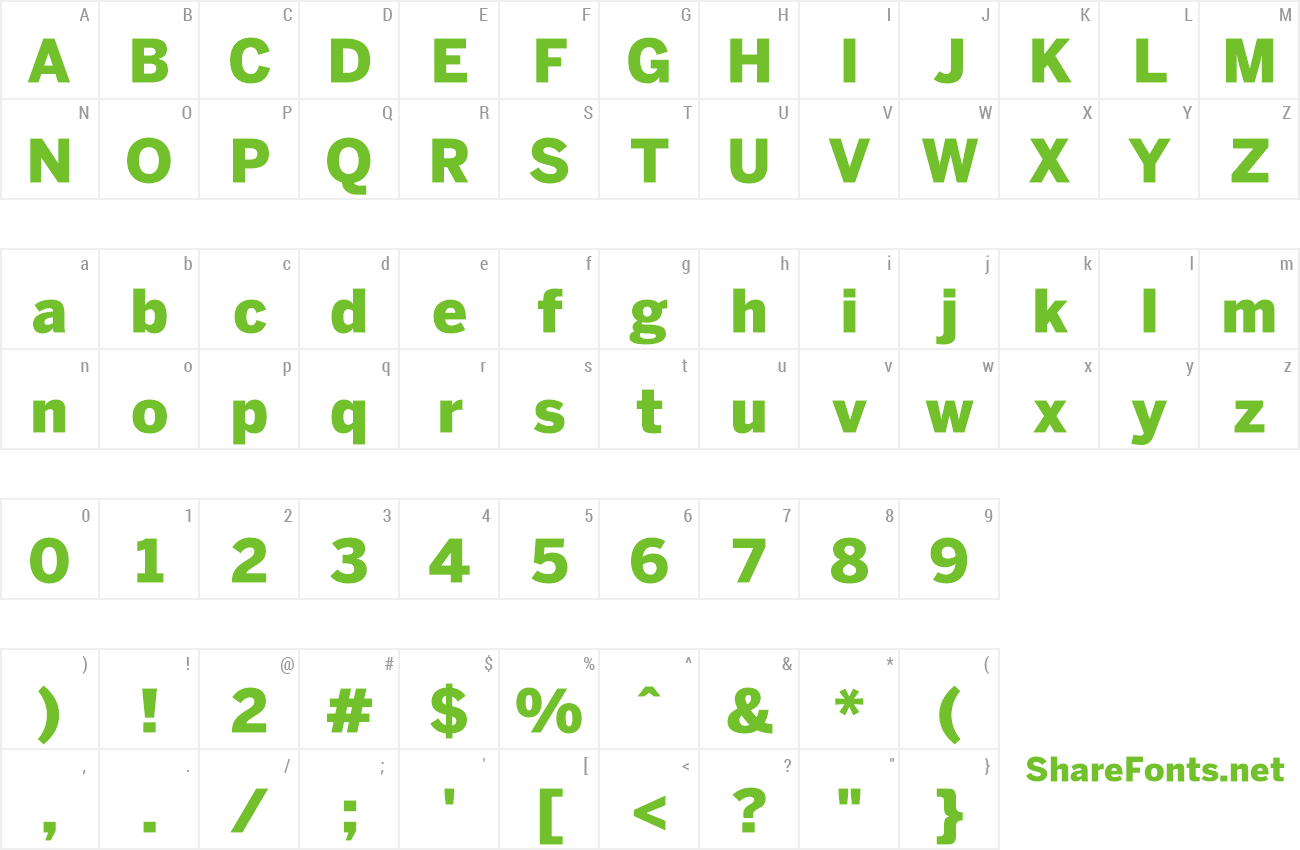
Good sans news family font. Fb agency, fb agenda, fb benton sans, fb berlin sans…
He presented it in the year 1995 and extended the font family through cyrus highsmith of the font bureau.